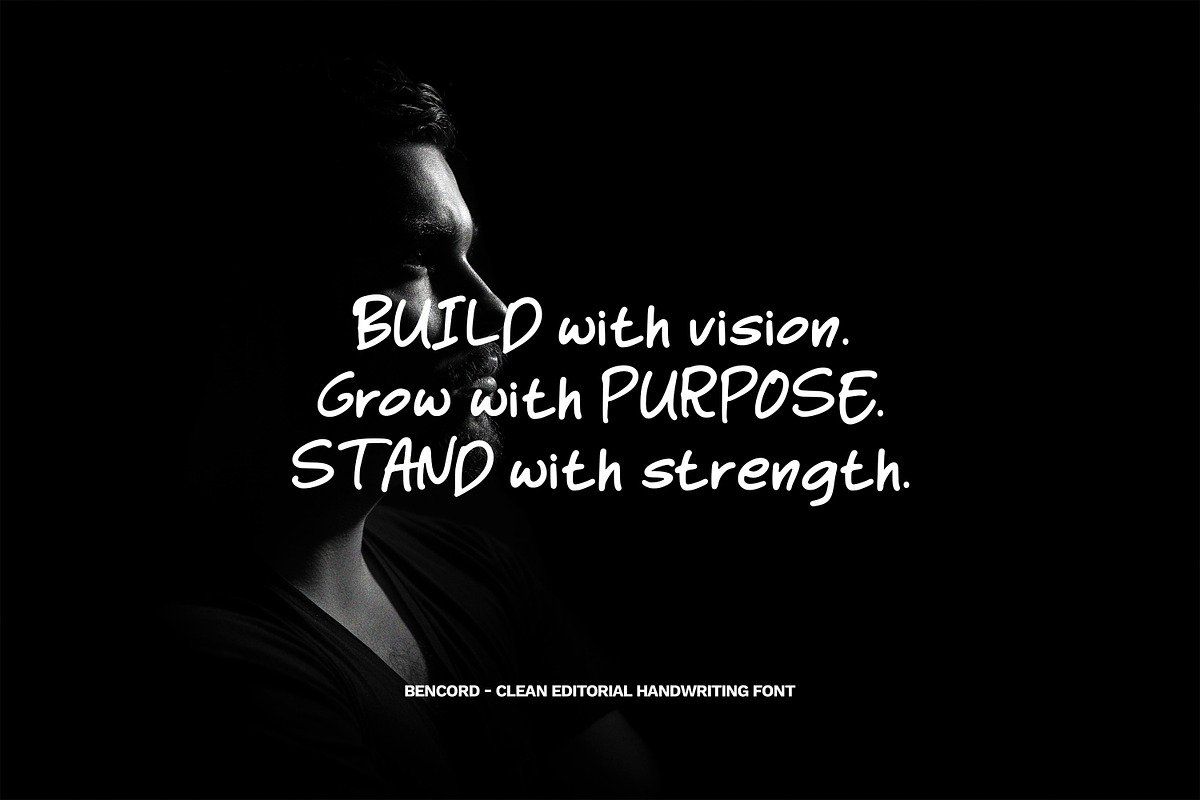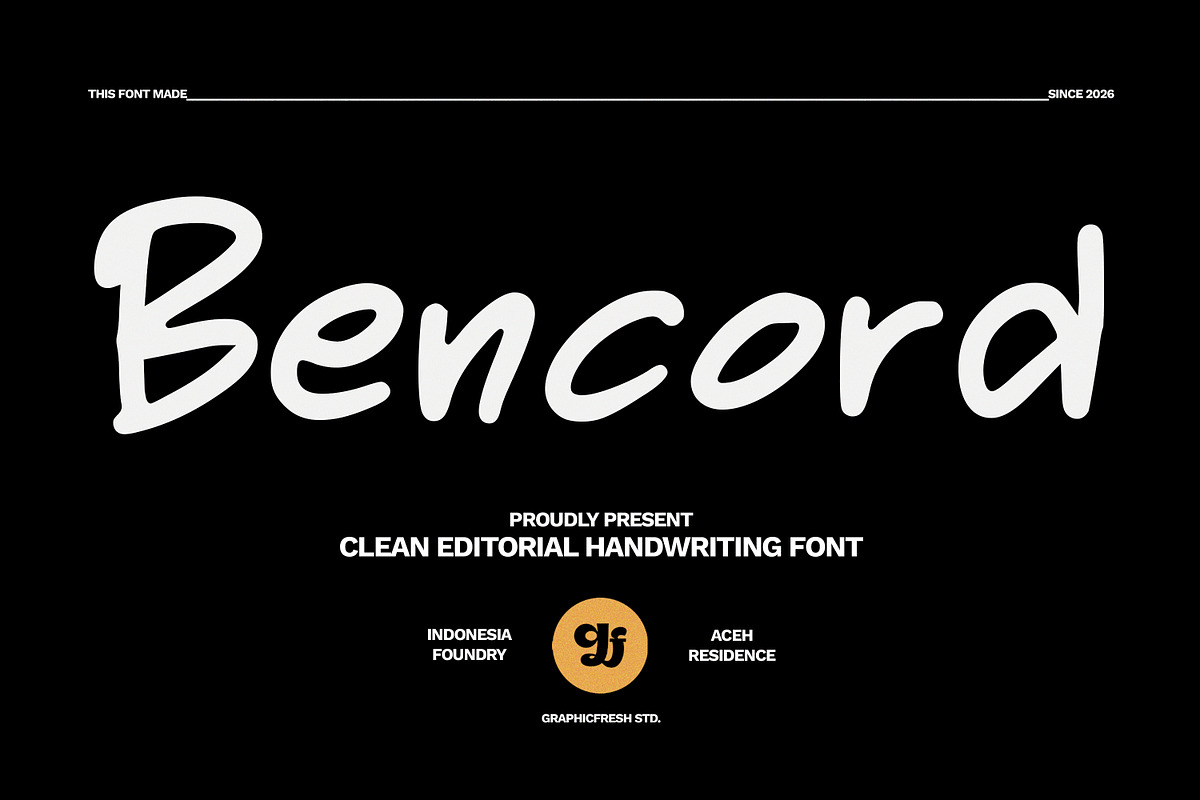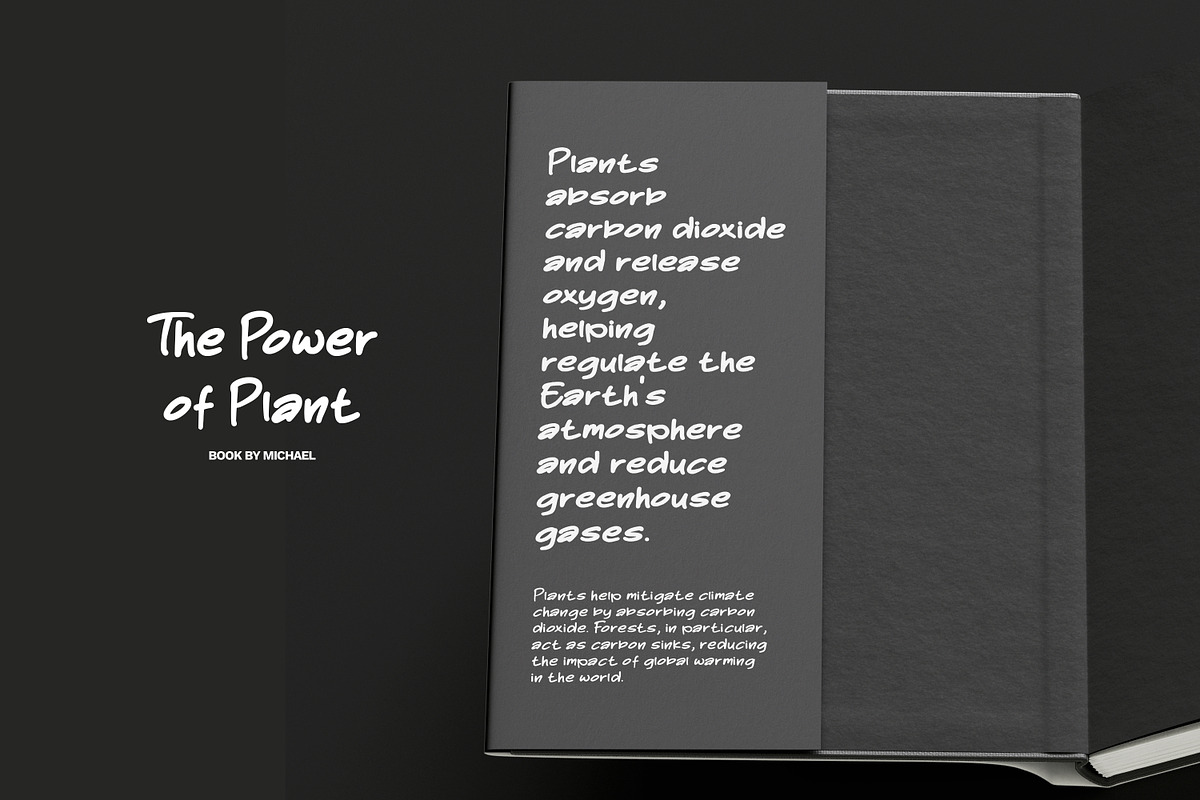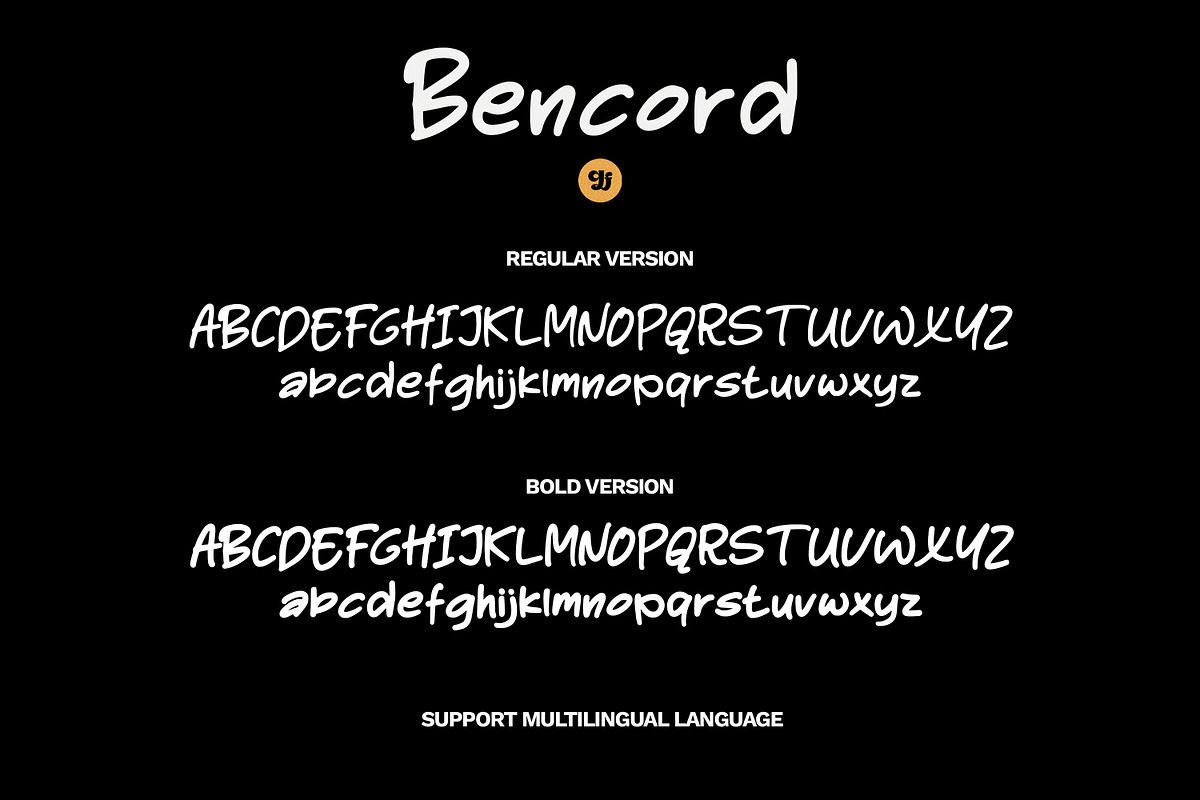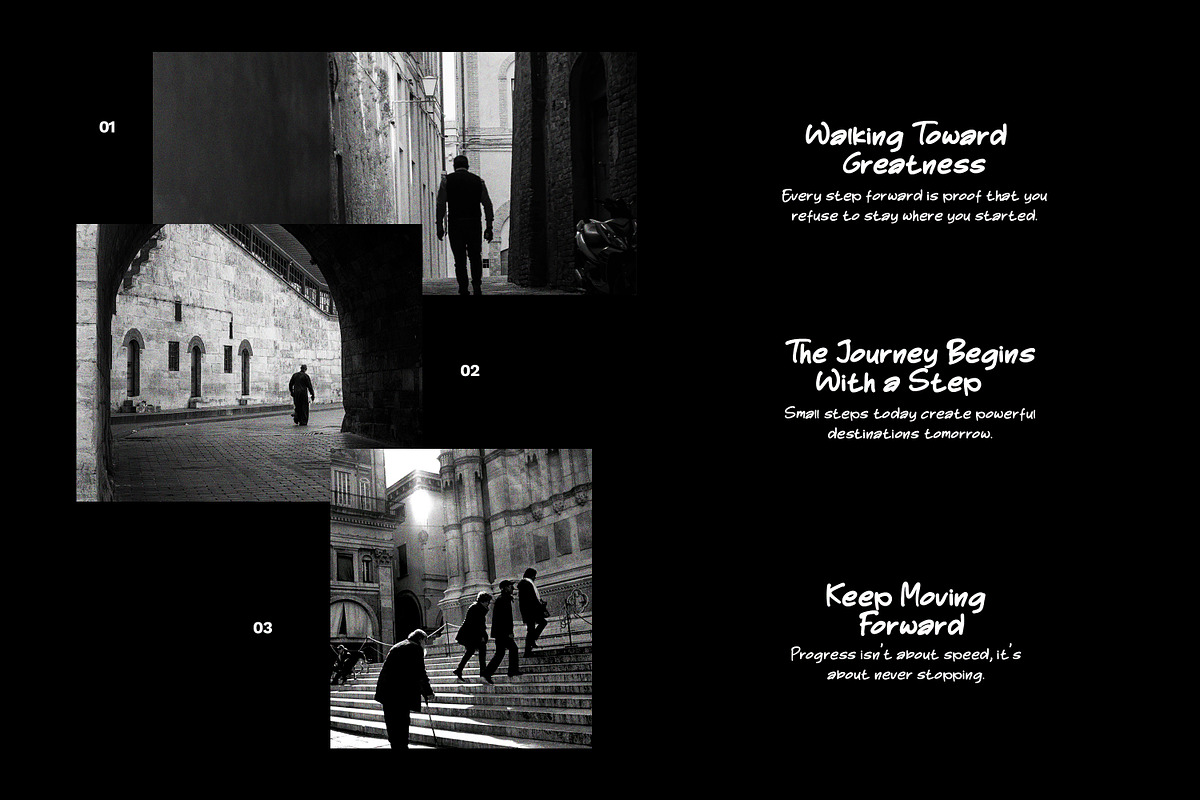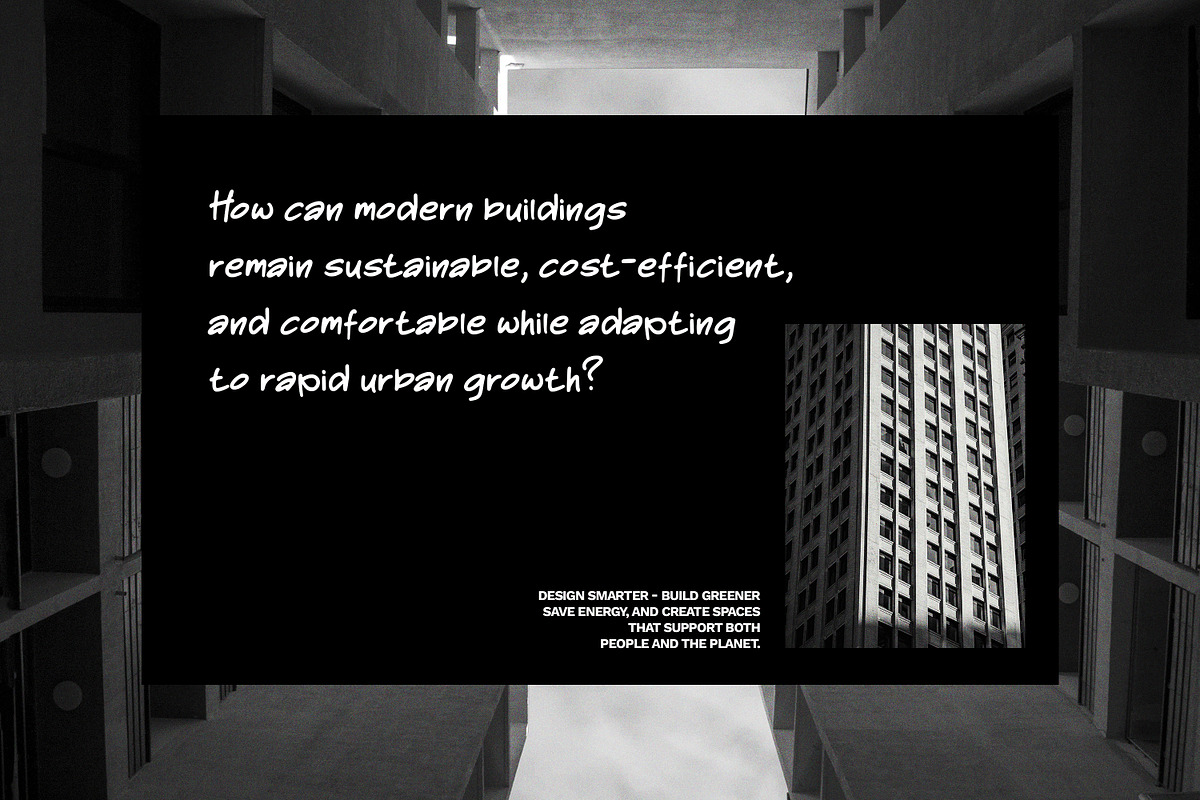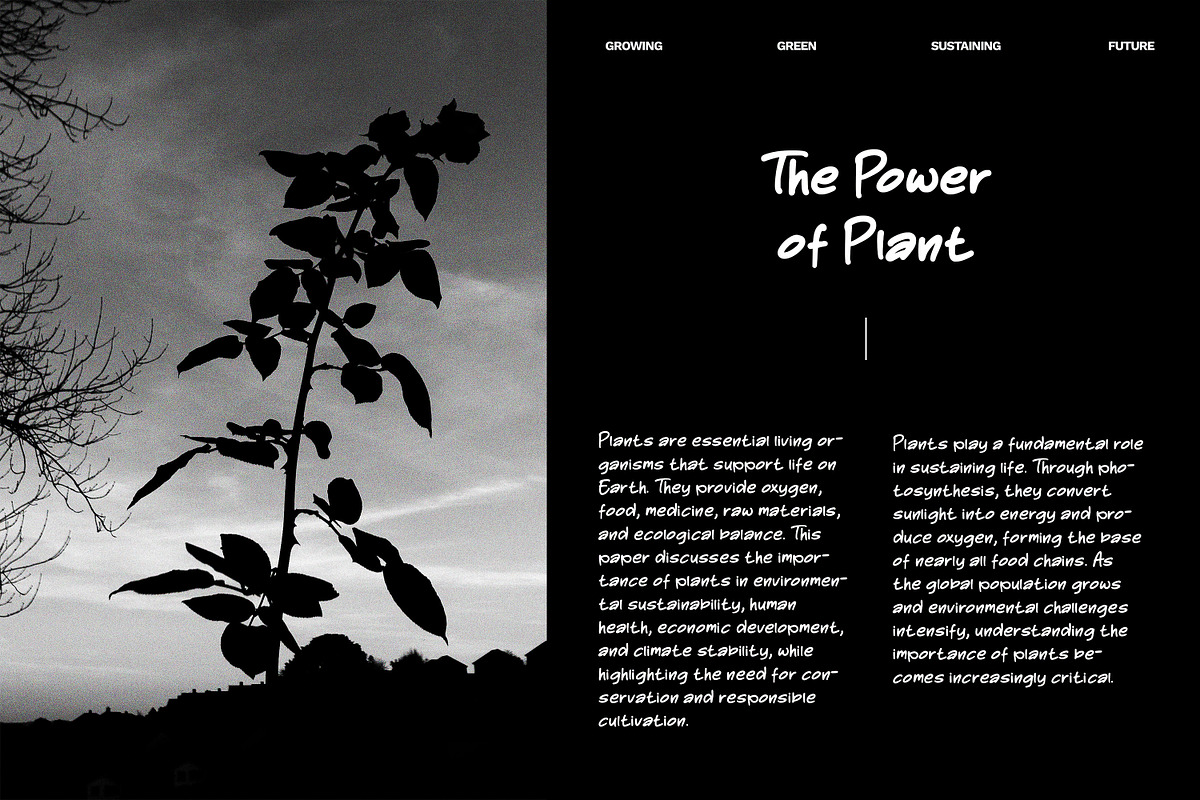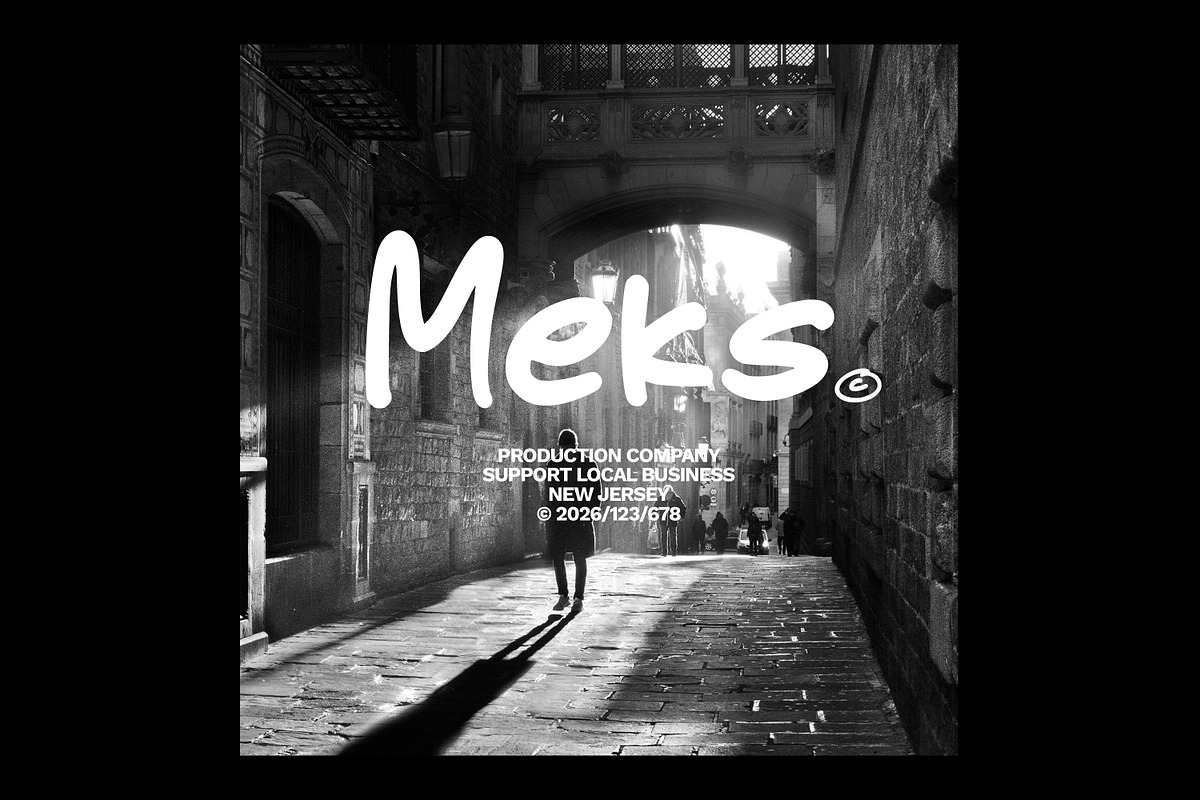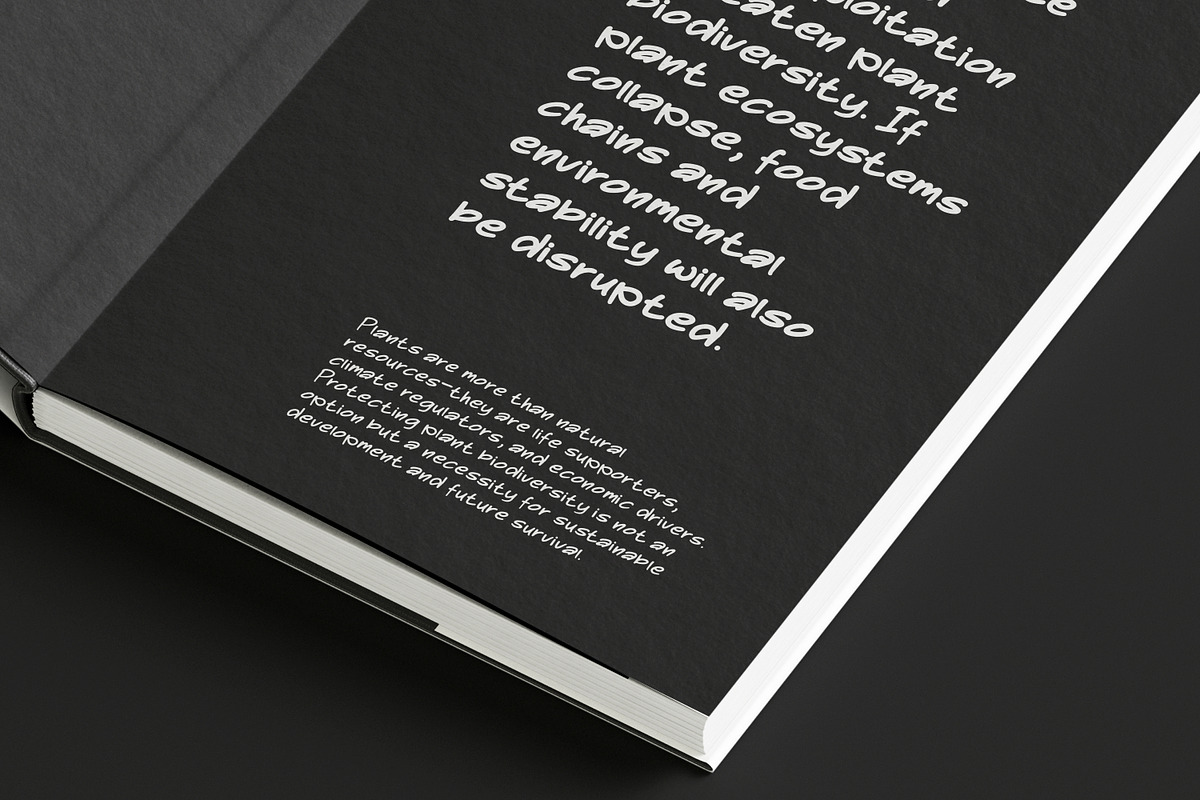
Bencord - Editorial Handwriting Font
Bencord - Clean Editorial Handwriting Font
Bencord is a clean editorial handwriting sans font that blends subtle handwritten character with clean sans-serif structure. Designed with smooth strokes and balanced proportions, this font delivers a modern professional look while maintaining a personal touch. Its refined simplicity makes it ideal for branding, editorial layouts, presentations, websites, and corporate identity systems that require clarity, elegance, and contemporary style.
Bencord offers a confident yet approachable tone — perfect for modern businesses seeking a clean handwritten sans aesthetic.